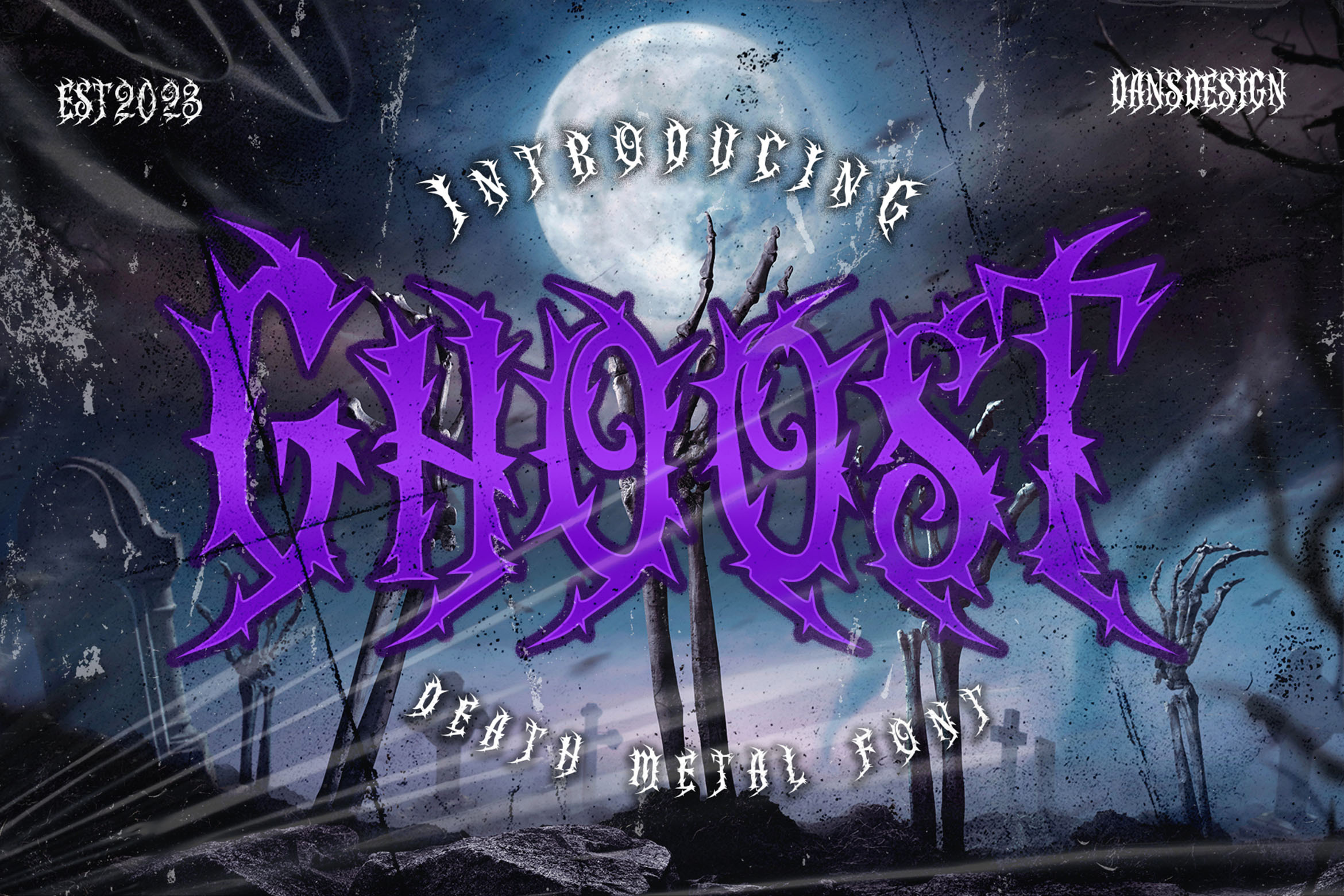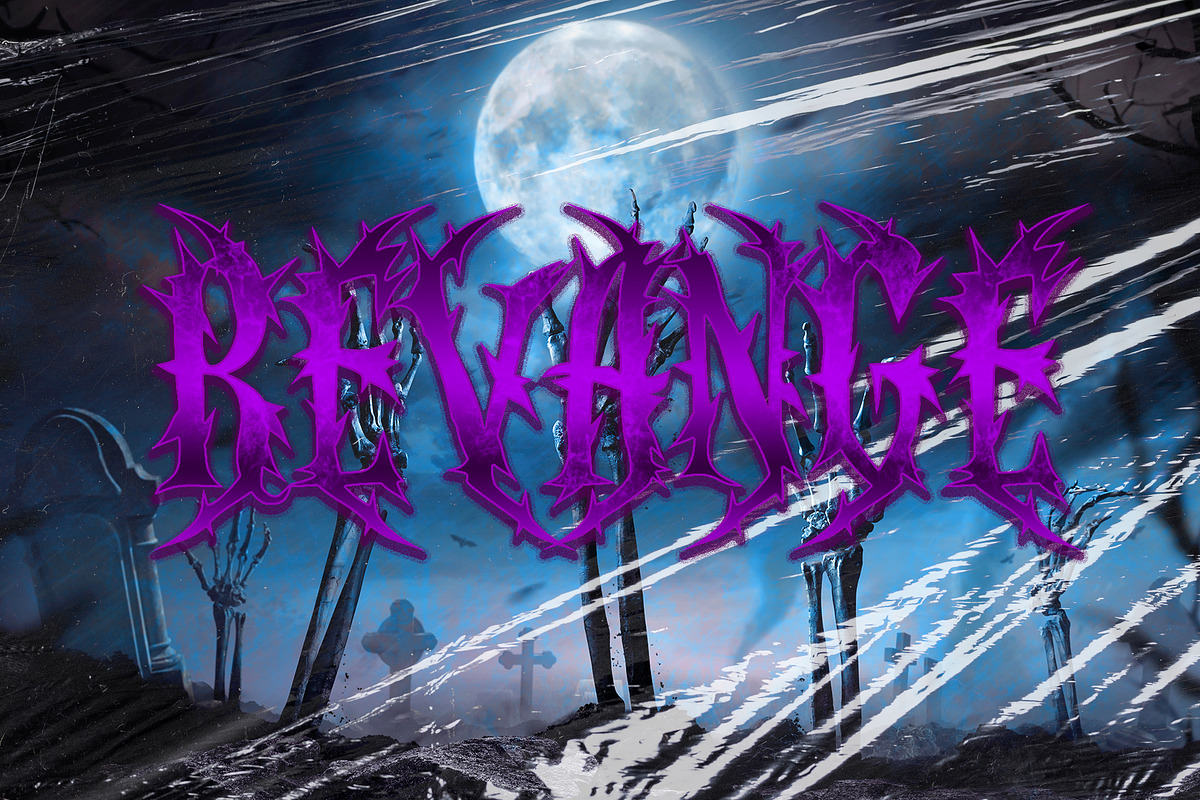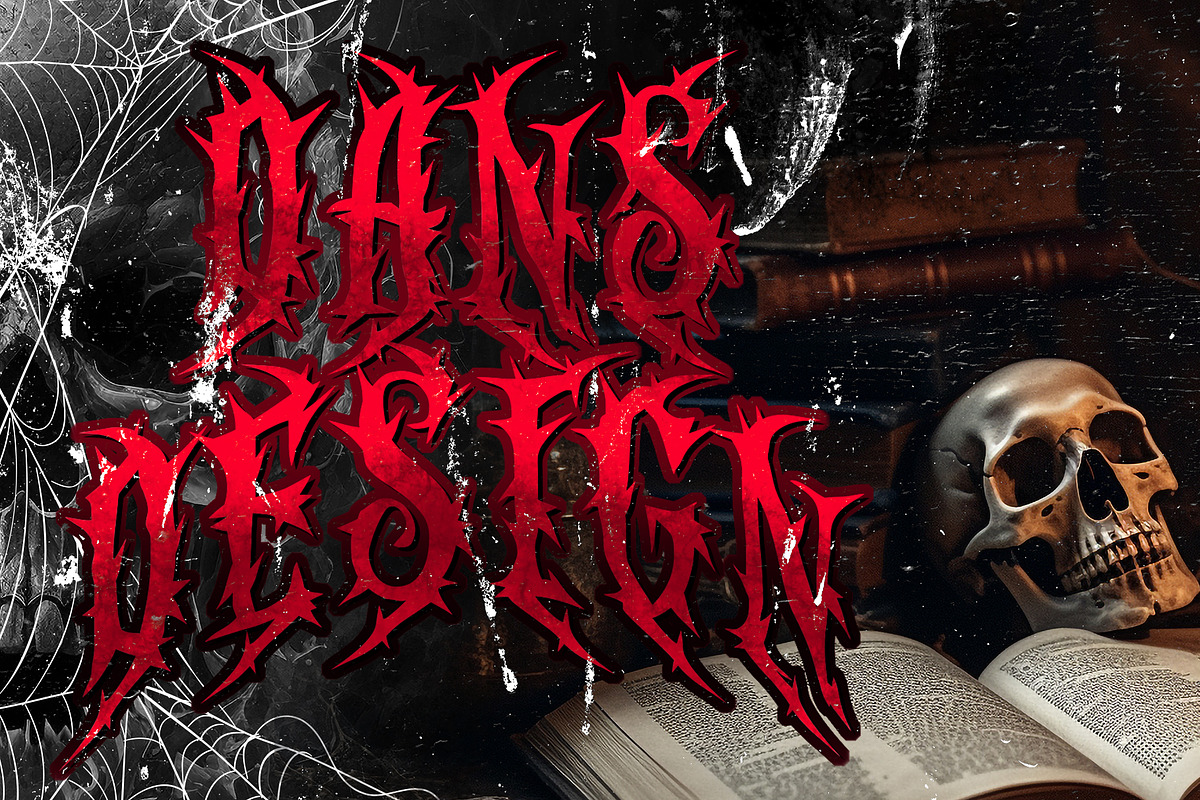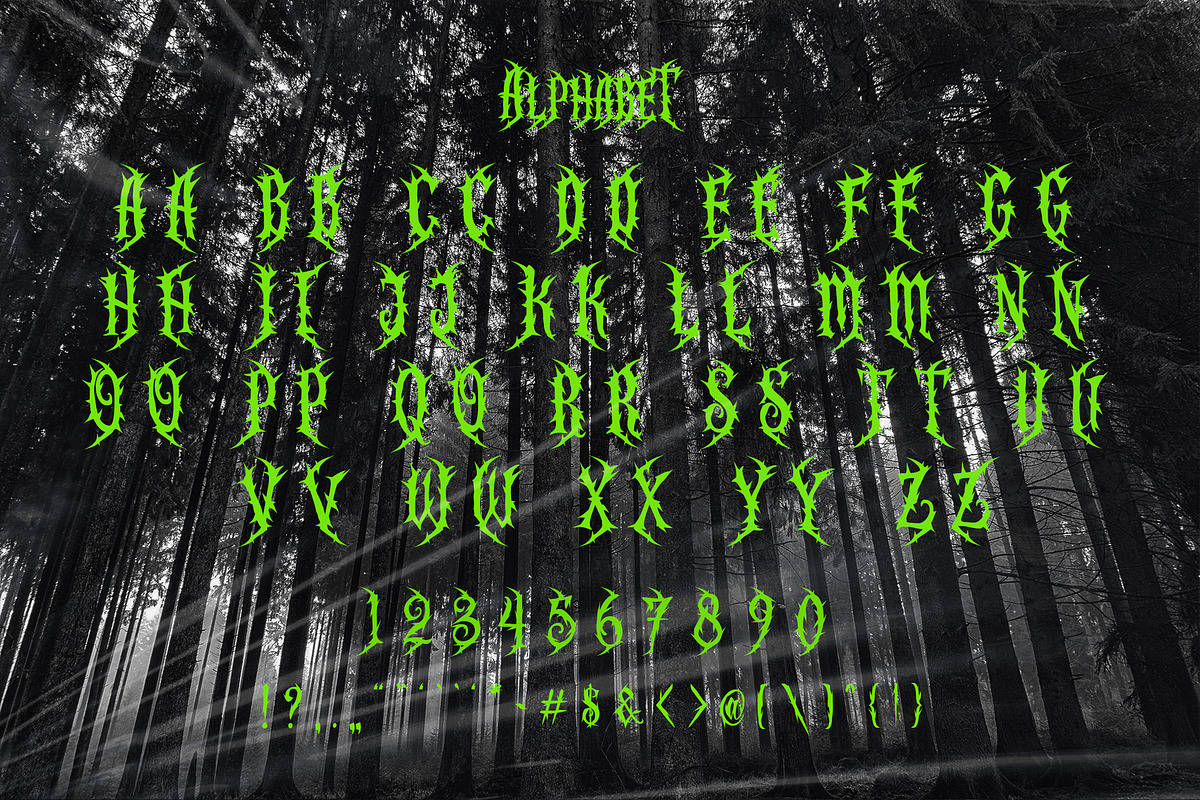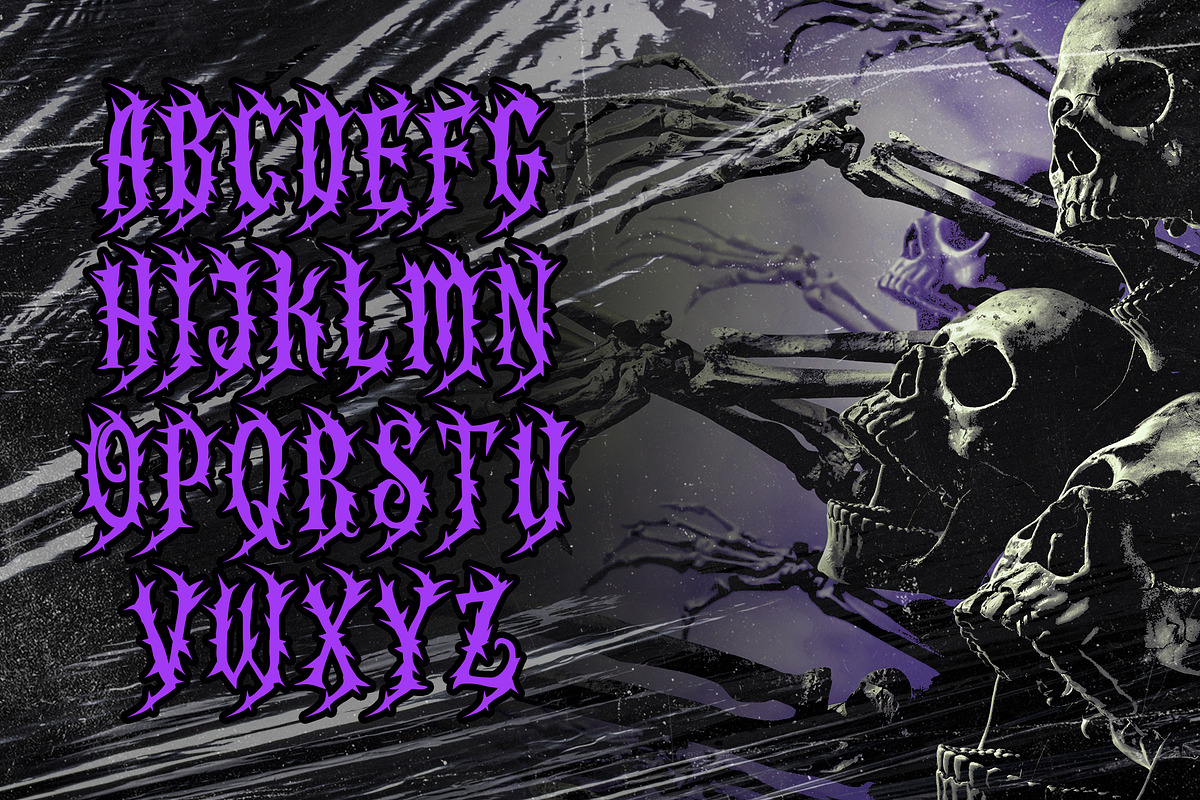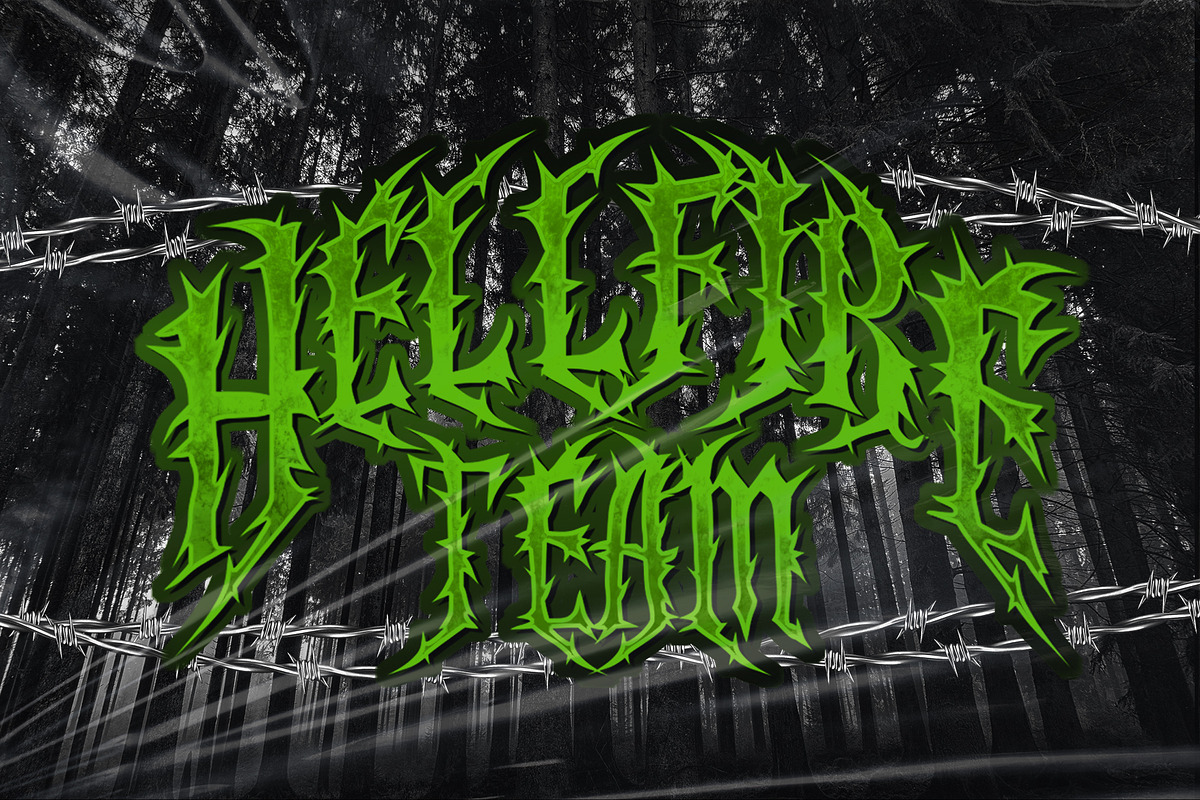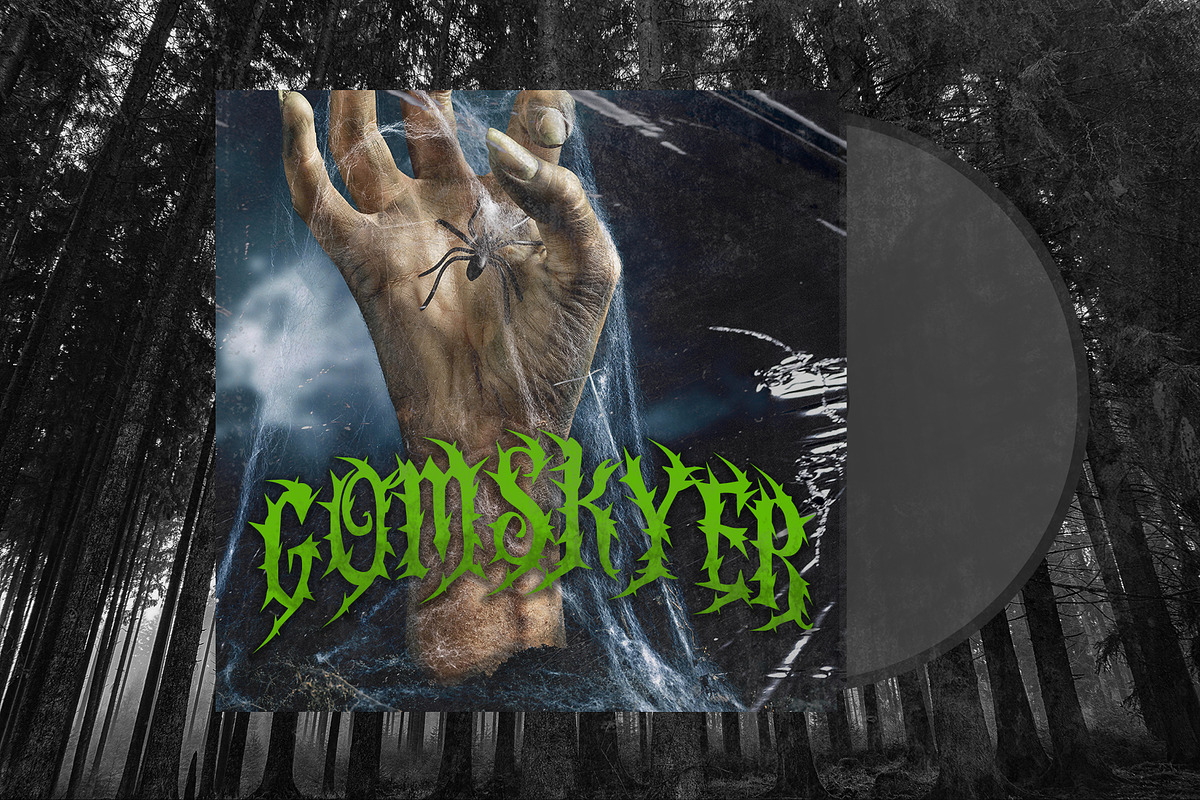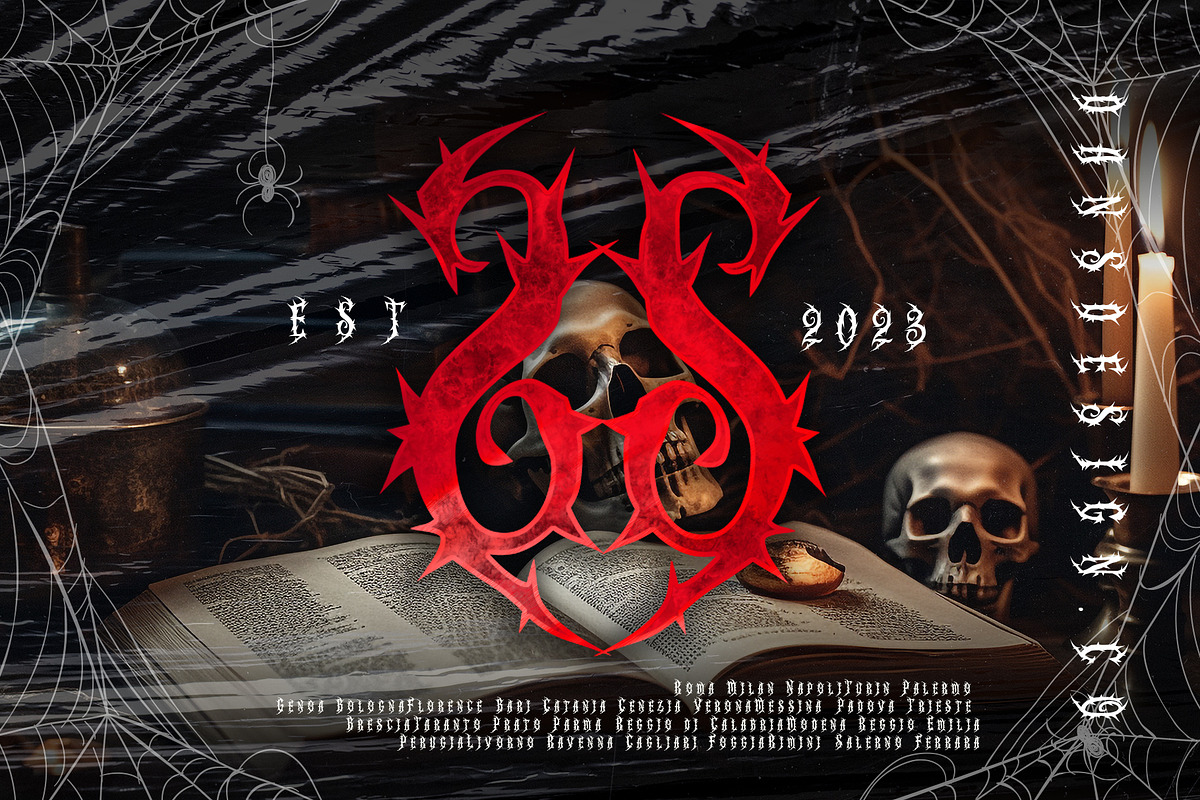
GHOOST Horror Metal Font
GHOOST – Horror Metal Font is a bold and terrifying typeface that captures the dark essence of blackletter, horror, and heavy metal style. With sharp strokes, aggressive curves, and haunting details, this font is designed to bring a powerful and dramatic impact to any project. Perfect for metal band logos, horror movie posters, album covers, Halloween designs, tattoo art, streetwear branding, and dark-themed merchandise, GHOOST delivers a truly fearsome aesthetic.
Its unique balance of intensity and legibility makes it versatile for both print and digital use. Whether you want to create a spine-chilling atmosphere or emphasize raw energy, this font instantly grabs attention and sets the mood.
Full multilingual support with accented characters PUA encoded for easy access to special glyphs Includes numerals & standard punctuation
Ideal for music branding, horror artwork, gothic design, extreme sports graphics, and Halloween projects